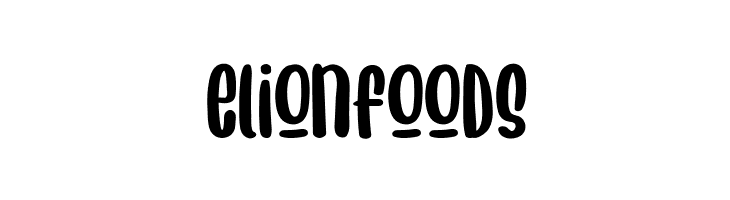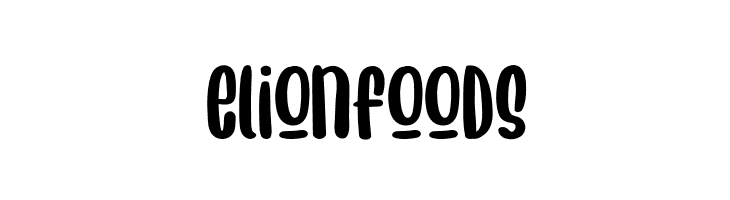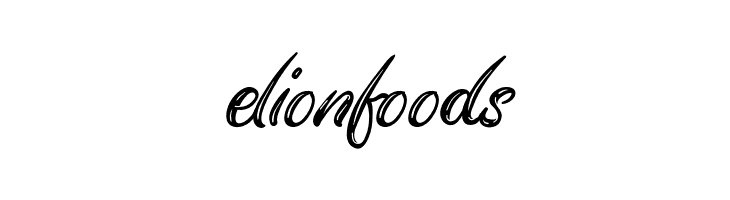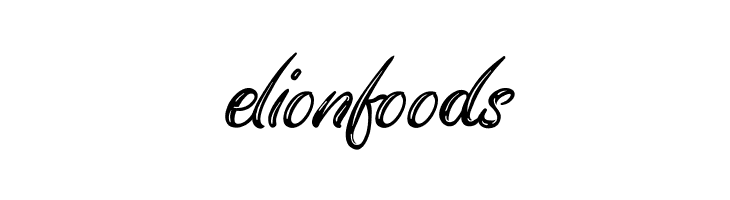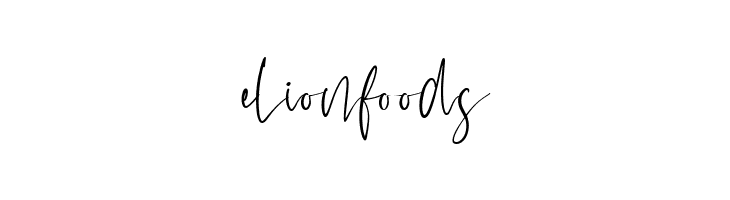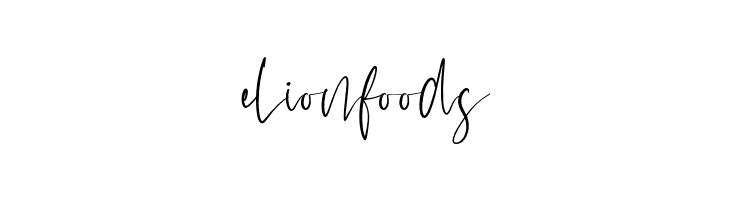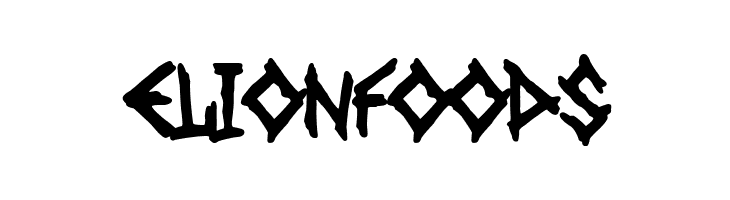
A lively and energetic script font with bold, flowing cursive letterforms.
A playful, bold font with rounded edges and a modern, cohesive style.
A playful, bold font with rounded edges and a whimsical touch.
A flowing, cursive font with elegant, interconnected strokes.
A dynamic and elegant script font with smooth, connected letterforms.
A decorative cursive font with elegant loops and swashes.
A decorative script font with elegant, flowing lines and intricate loops.
A lively and expressive handwritten font with flowing cursive letterforms.
A lively, expressive handwritten font with fluid, dynamic strokes.
A bold, jagged, and edgy font with a punk-inspired, graffiti-like style.